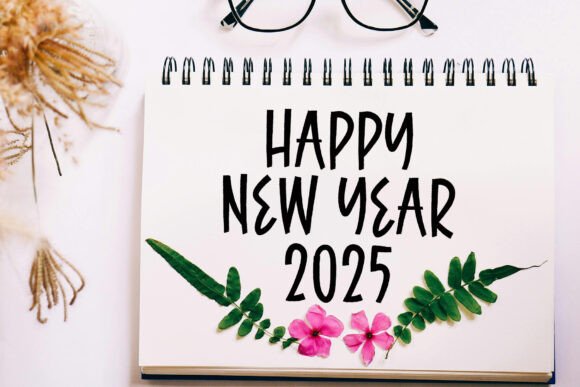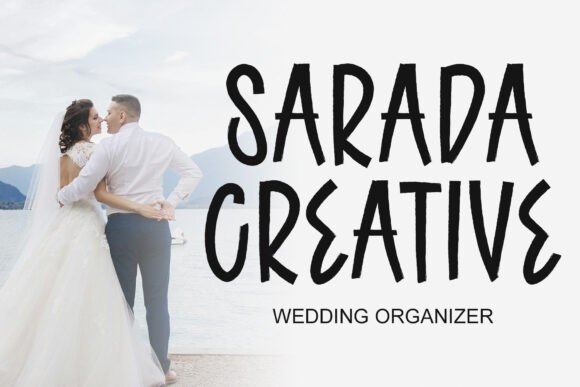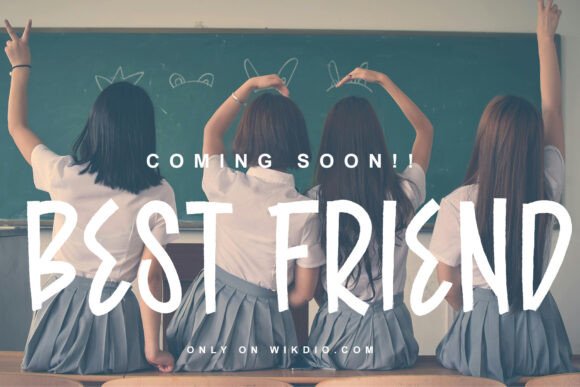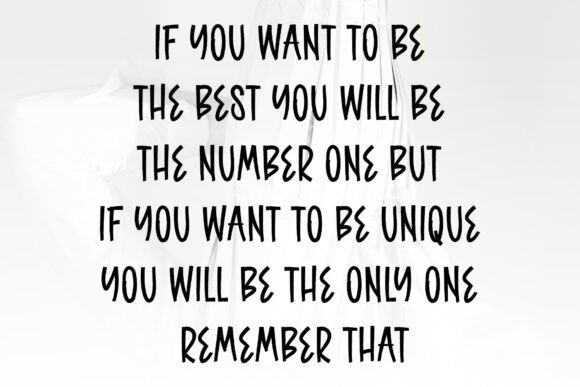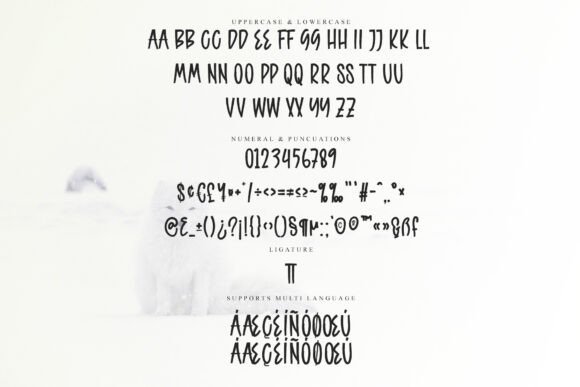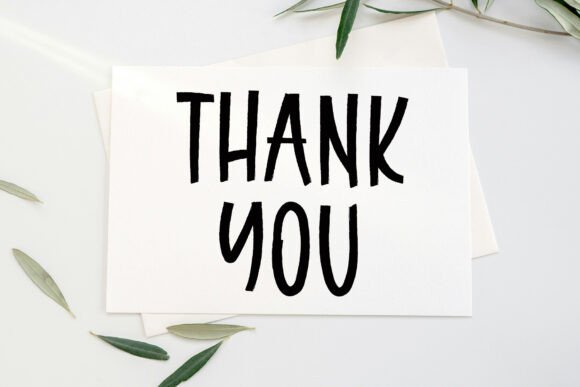
Have you ever been browsing through a magazine or scrolling through a social media feed, and suddenly, a design catches your eye? The typography, the colors, the overall aesthetic – everything just comes together in a way that makes you stop and stare. That’s exactly what we’re going for with the Brawny Font.
This captivating display font has been carefully crafted to elevate your magazine designs and creative craft projects to the next level. With its unique blend of style and sophistication, the Brawny Font is a must-have addition to any designer’s font library. Whether you’re a seasoned pro or just starting out, this font is sure to bring a touch of magic to your next project.
Brawny Font Key Features
- Unique Characteristic: Brawny Font features a rugged, distressed aesthetic with subtle texture and wear, perfect for industrial or vintage designs.
- Font Weight: Brawny Font comes in a range of weights, from Light to Extra Bold, allowing for flexibility in design and typography.
Brawny Font Review
Overall, I think Brawny Font has some great qualities, but it also has some limitations that might hold it back from being a top contender in the sans-serif font family.
- ✨ Unique and bold design that makes it perfect for headlines and titles
- ✨ Easy to read, even at small font sizes
- ✨ Compatible with a wide range of devices and operating systems
- ⚠️ May not be suitable for body text due to its bold and condensed design
- ⚠️ Can look cluttered and overwhelming when used extensively
- ⚠️ Limited availability in various font weights and styles
Brawny Font is a solid choice for designers who need a bold and attention-grabbing font for their headlines and titles. However, it may not be the best option for body text or for designs where a more subtle font is needed. With its unique design and wide compatibility, Brawny Font is definitely worth considering, but it’s essential to use it thoughtfully and in moderation.
To get the most out of the Brawny Font, use it for headings and titles to add a bold and rugged touch to your designs.
Use the font in combination with other bold and playful fonts to create a unique and eye-catching visual style.
Experiment with different font sizes and styles to create a visually appealing and balanced design.
The Brawny Font is commonly used for:
- Outdoor and adventure-themed designs
- Rugged and industrial-themed designs
- Playful and energetic designs
Alternatives to Brawny Font
Arial Black is a sans-serif font that is similar to Brawny Font in terms of its bold and condensed style. It is suitable for use in titles, headings, and other text where a strong, attention-grabbing font is needed. Compared to Brawny Font, Arial Black is a bit more generic and may not have the same level of sophistication, but it is a good alternative for those who want a similar look without the expense.
Impact is a sans-serif font that is known for its bold and condensed style, making it a good alternative to Brawny Font. It is often used in titles, headings, and other text where a strong, attention-grabbing font is needed. Compared to Brawny Font, Impact has a more dramatic and attention-grabbing look, but may not be suitable for all types of text.
3. Bold Extended
Bold Extended is a serif font that is similar to Brawny Font in terms of its bold and condensed style. It is suitable for use in titles, headings, and other text where a strong, attention-grabbing font is needed. Compared to Brawny Font, Bold Extended has a more elegant and sophisticated look, but may not be suitable for all types of text.